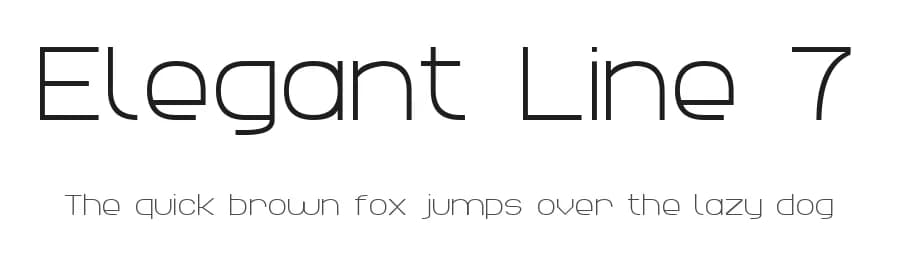
About Elegant Line 7 Font
Elegant Line 7 is a sans-serif font designed by Style-7. It includes 312 glyphs, a regular weight, TTF (TrueType) format, and 227 languages. Elegant Line 7 is free to download; check the license details on this page before commercial use. Sans-serif fonts like Elegant Line 7 work best for clean body text, user interfaces, branding, and modern layouts.
Elegant Line 7 Font is a versatile sans-serif font that works for both headings and body text. Pair it with a contrasting serif or slab serif font to add visual interest and a clear distinction between titles and body copy.
Elegant Line 7 Font
by Style-7
Elegant Line 7 Font is a sans serif typeface by Style-7, ideal for logos, invitations, branding, and creative projects.